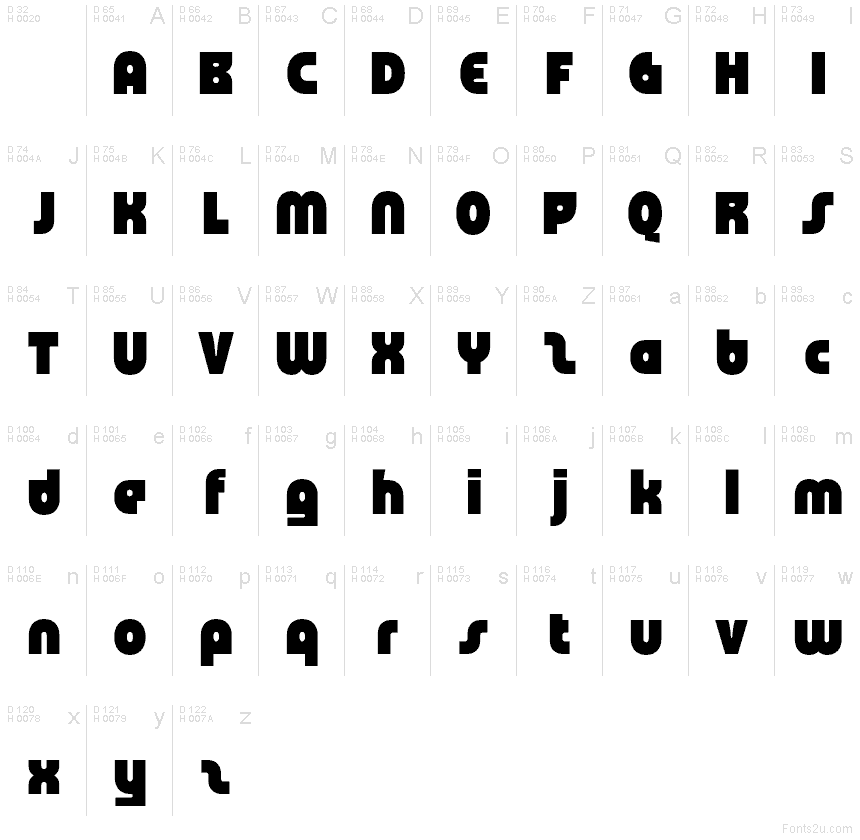
CS Beast Regular Demo
CS Beast font by Craft Supply Co. is a free bold rounded geometric display font. Built like a block of matte rubber, it leans on thick, monolithic strokes and those signature circular punch-outs that act like spotlighted counters. The curves are smooth, the spacing tight, and every letter feels carved rather than drawn—giving headlines a dense, pressurized energy without turning clumsy.
Using CS Beast, big type snaps to attention on esports logos, streetwear branding, game titles, festival posters, packaging, and YouTube thumbnails. The rhythm is compact and confident, so it reads fast at a glance and still feels custom. This free font shines at oversized scales; pair it with a light, neutral grotesk for body text to let the heavy forms breathe.